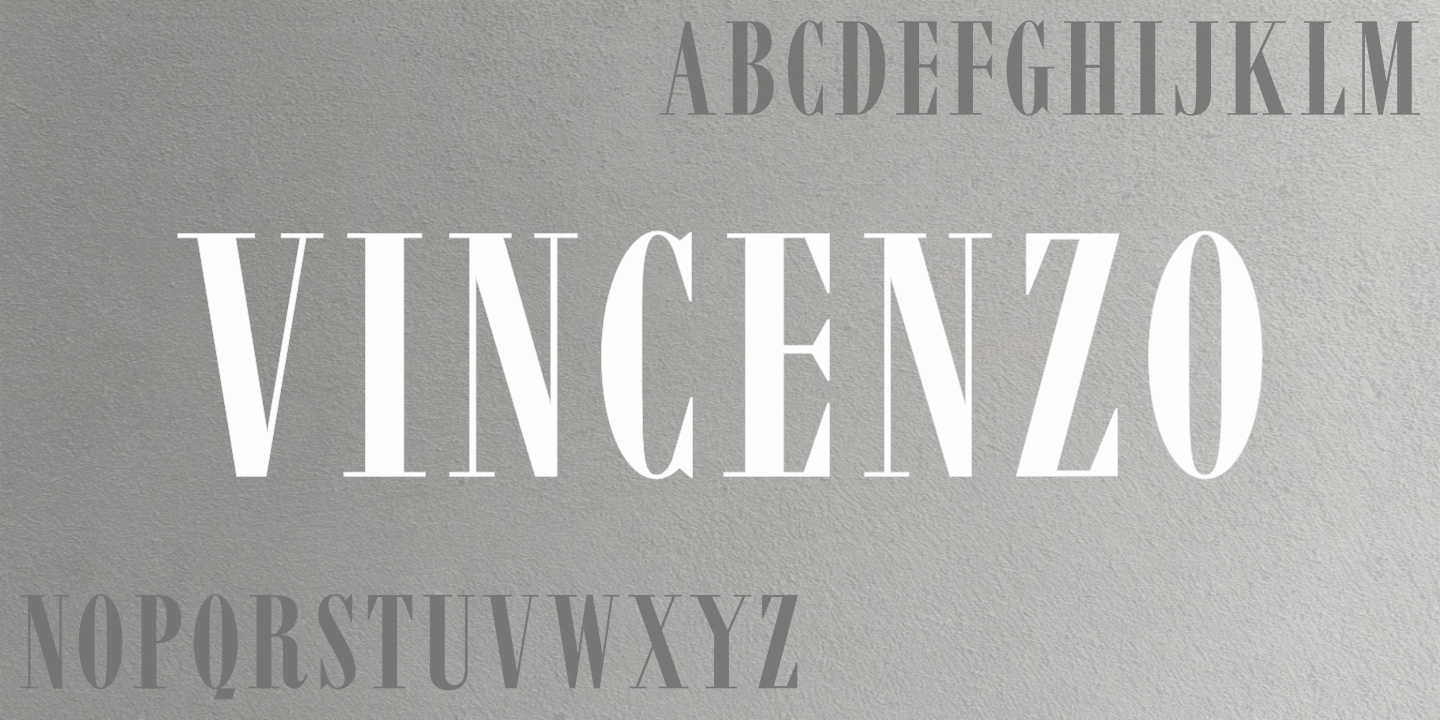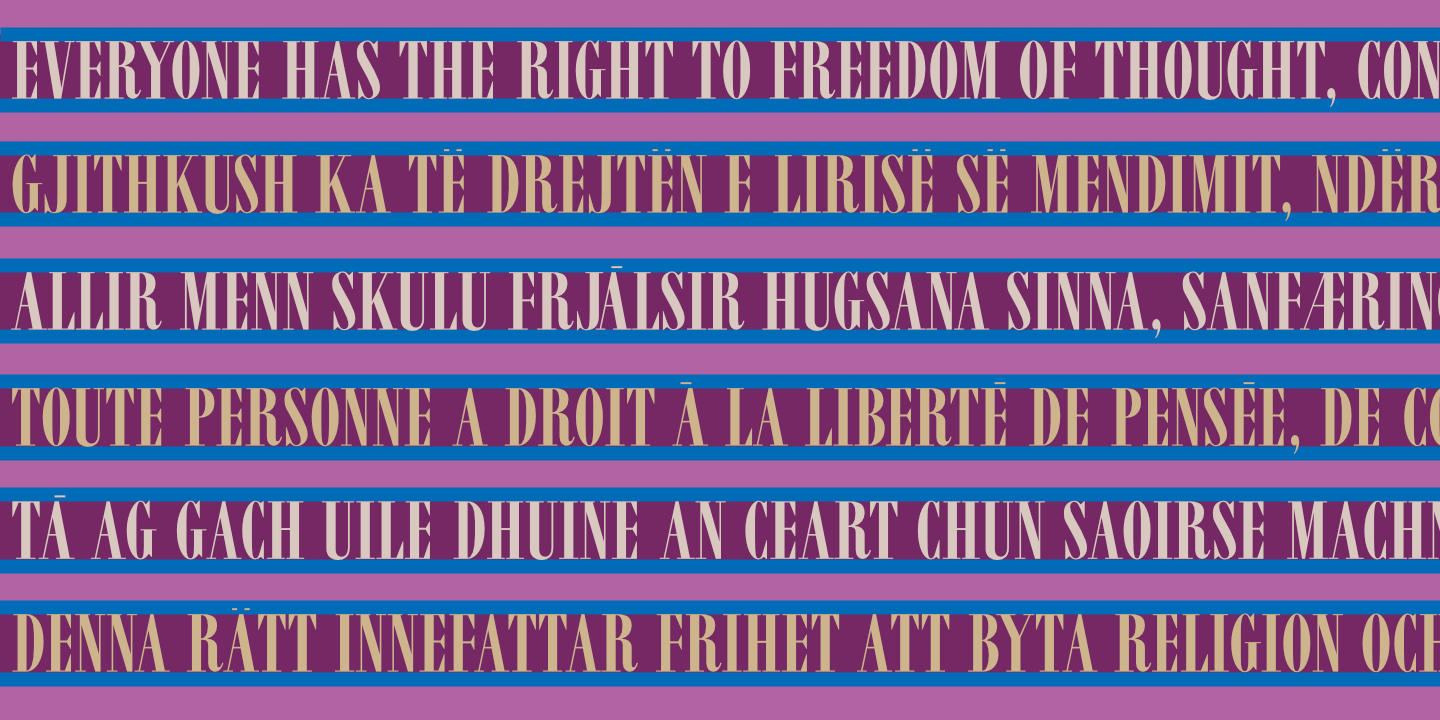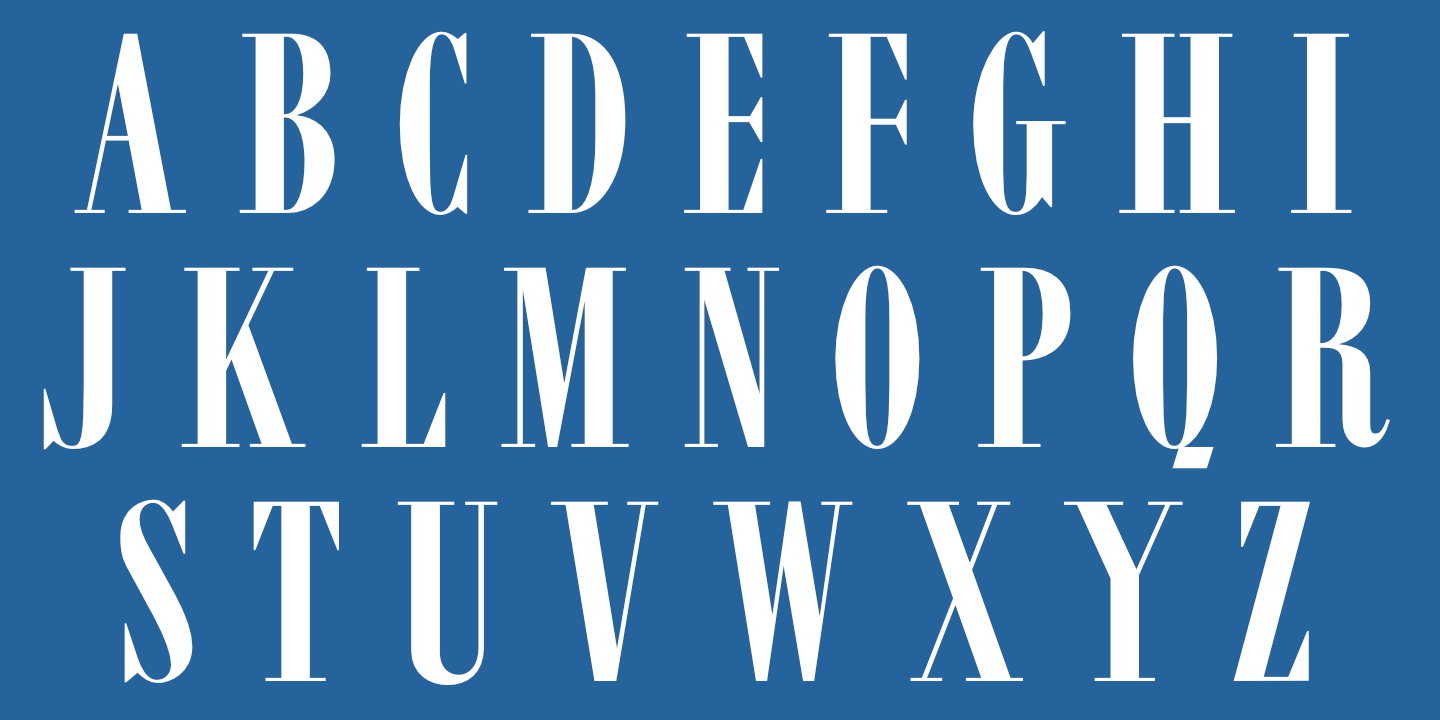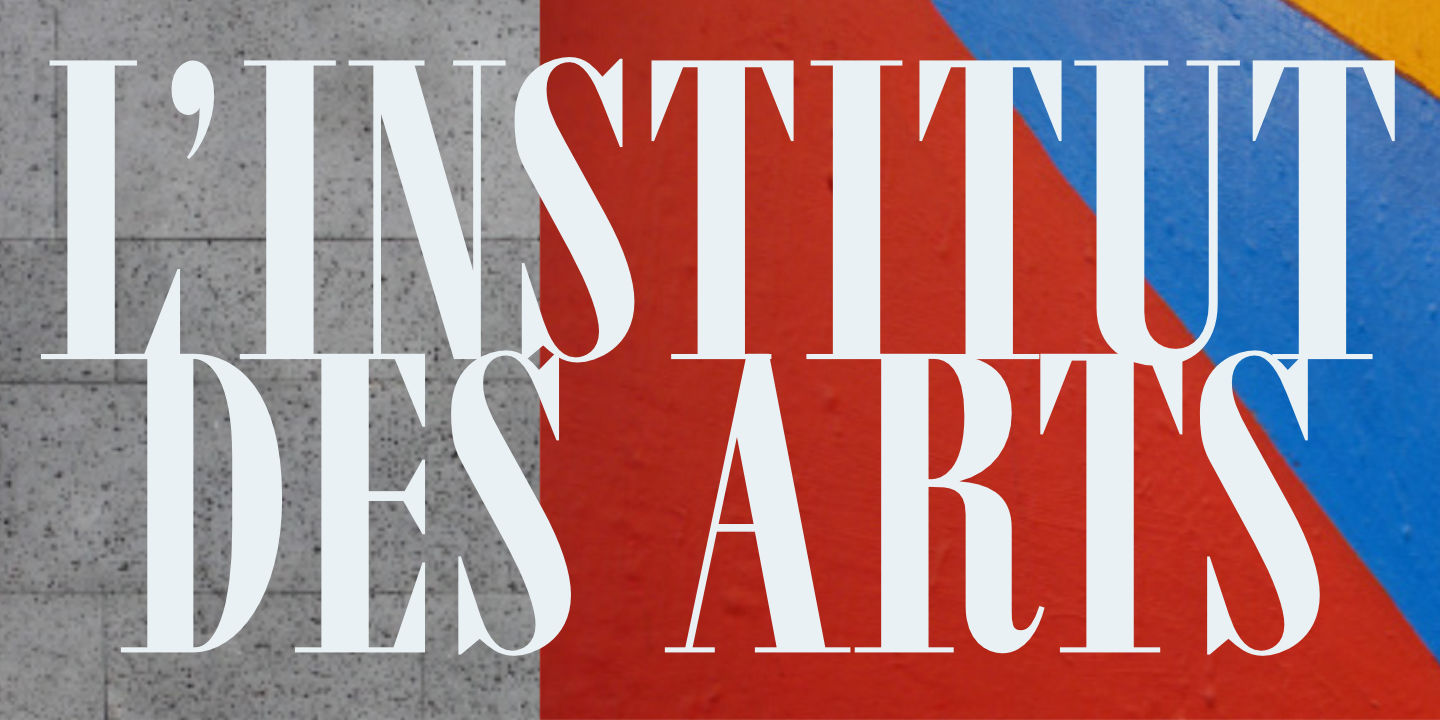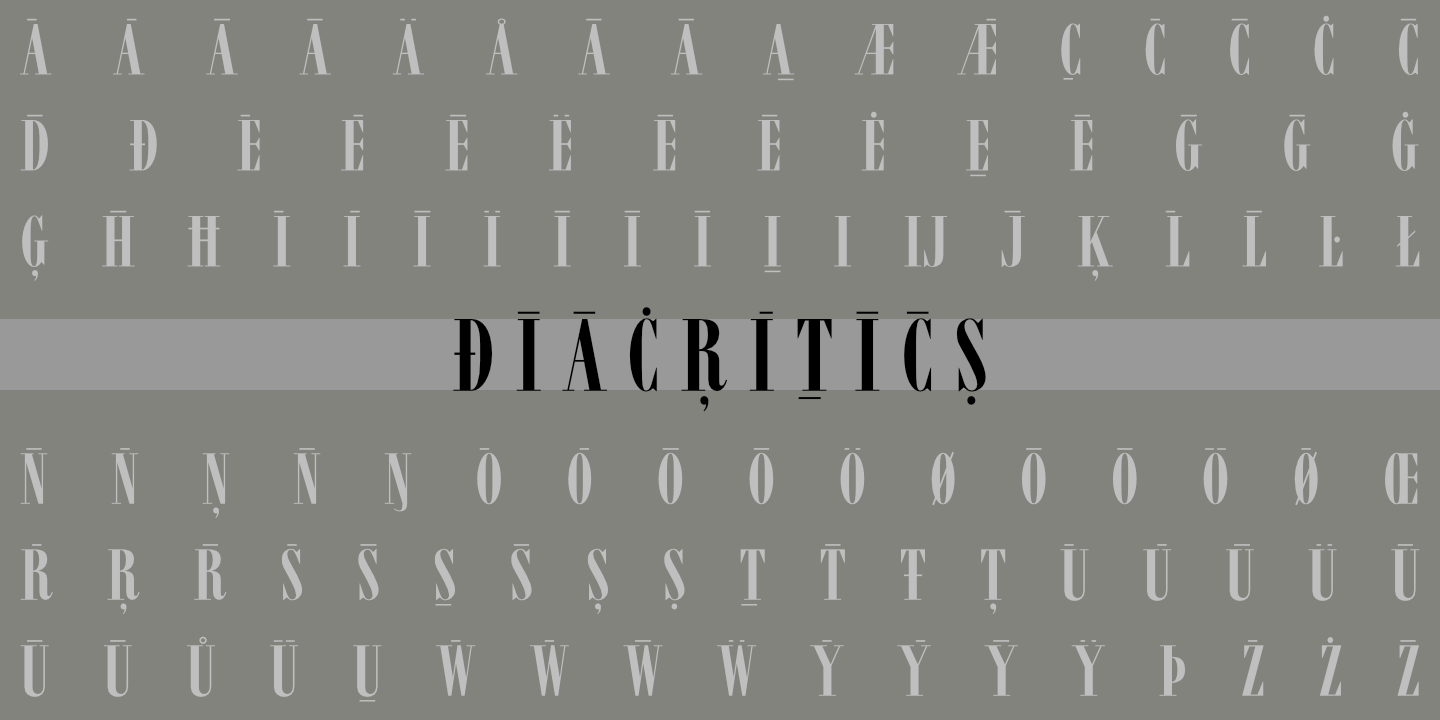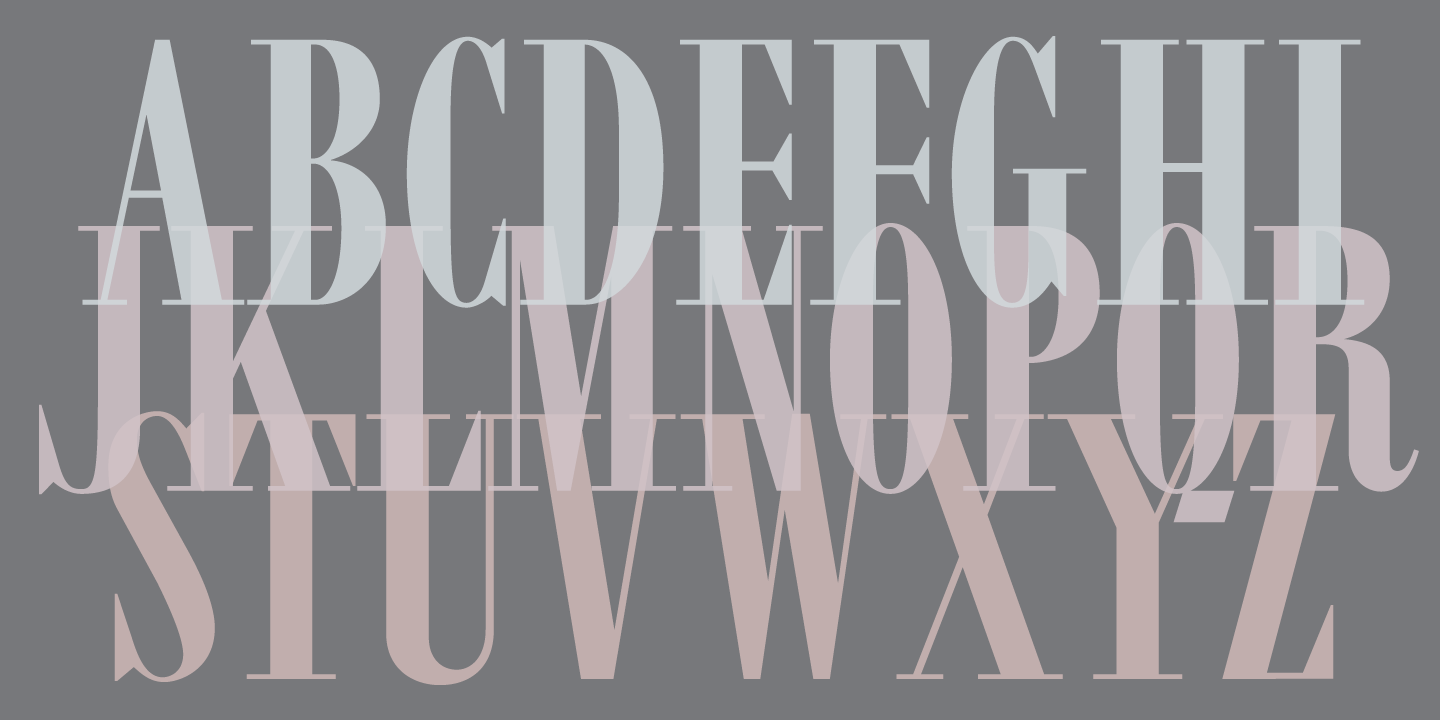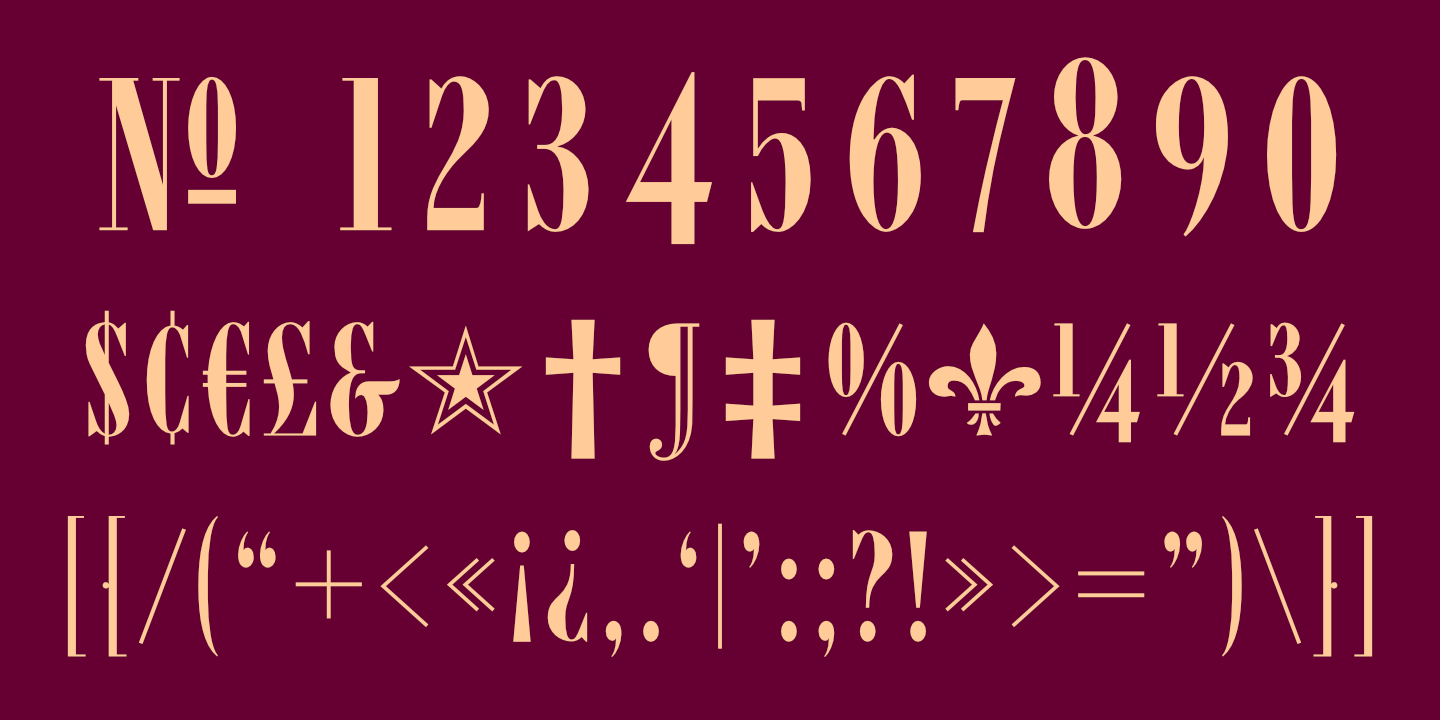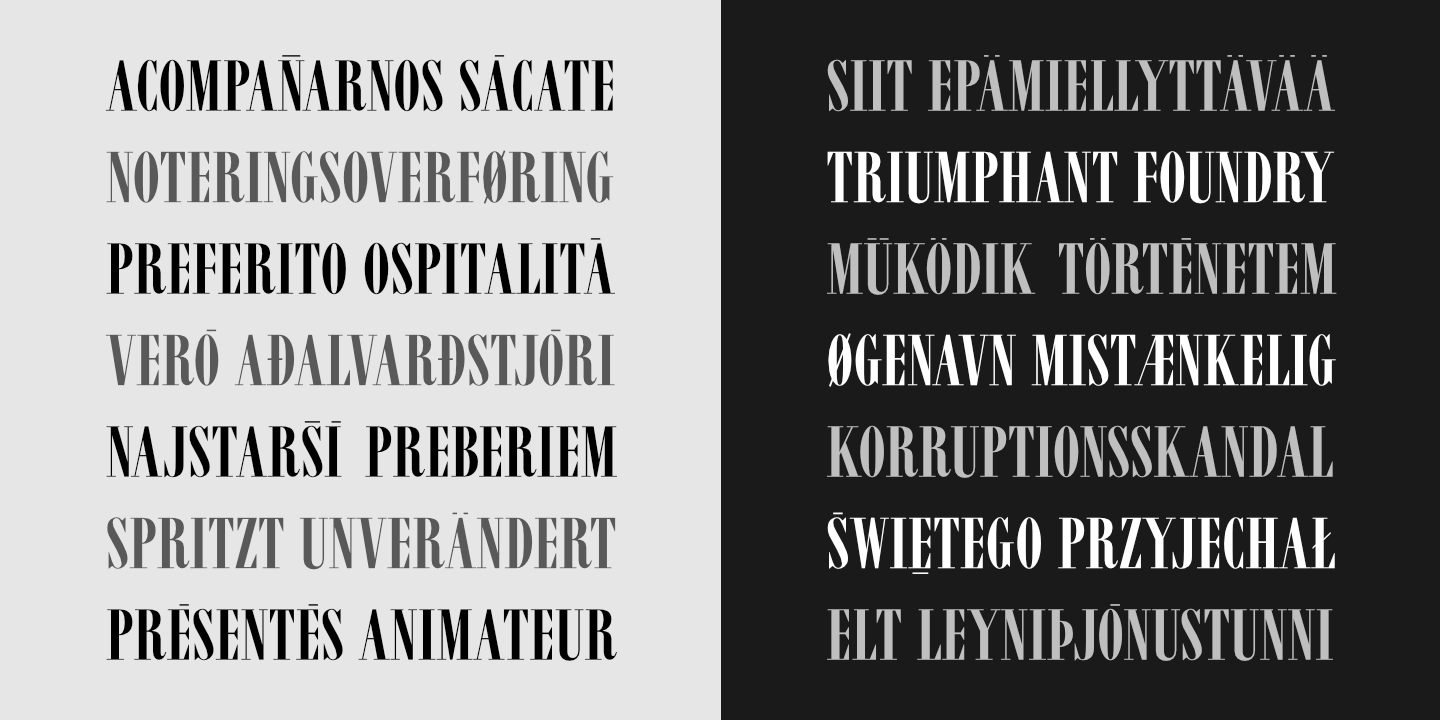
Basic Latin alphabet
Vincenzo: Basic Latin alphabet. Vincenzo supports many Western European languages. See Glyphs for details.
Vincenzo supports many Western European languages. See Glyphs for details.
Stacked Text
Notice that light text on a dark background appears slightly heavier than dark text on a light background. blank
Diacritics
Bodoni Brothers
The "Bodoni Brothers": A comparison of Dionisio, Norberto and Vincenzo with Bodoni 72 (in red). blank
VINCENZO
Institut des Artes
Sunset at Andy's Market
Layered Alphabet
Colors of India
Fontname poster